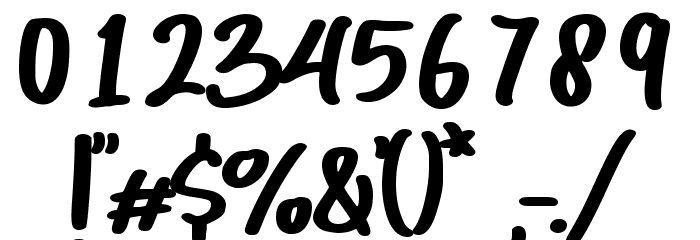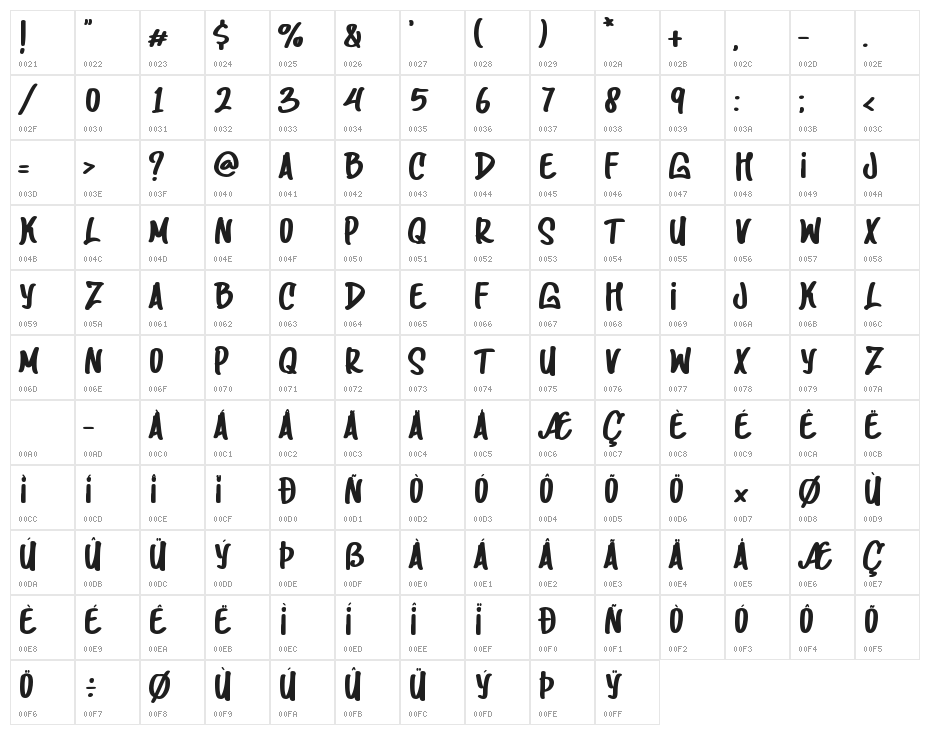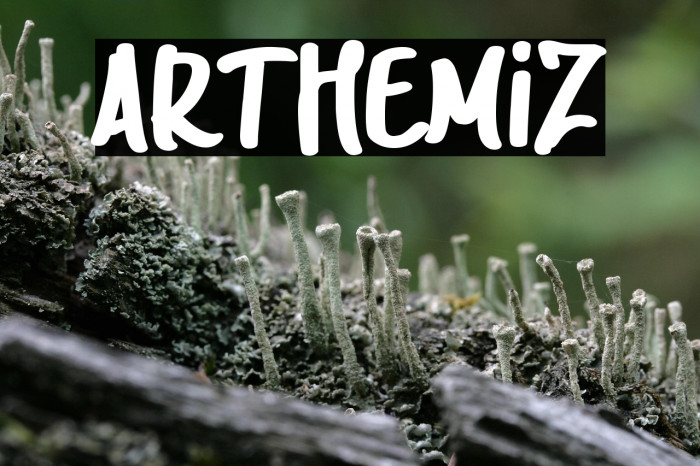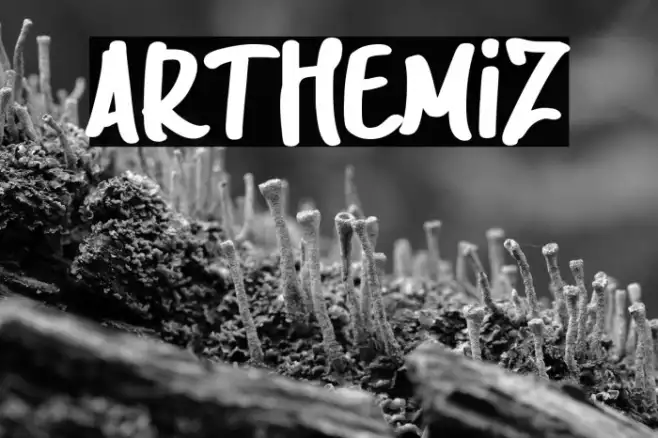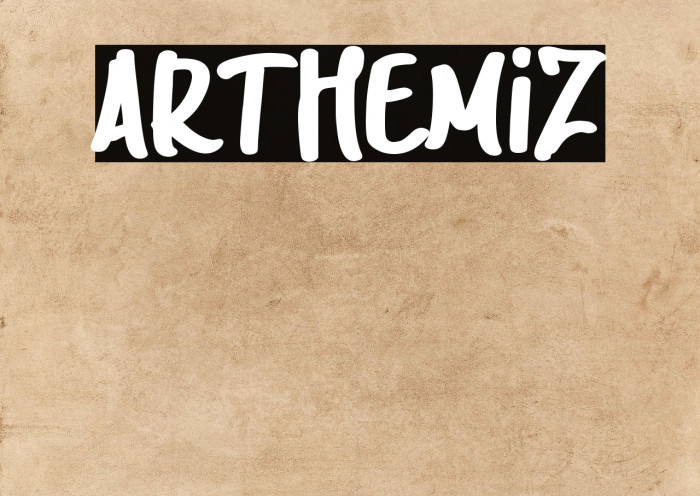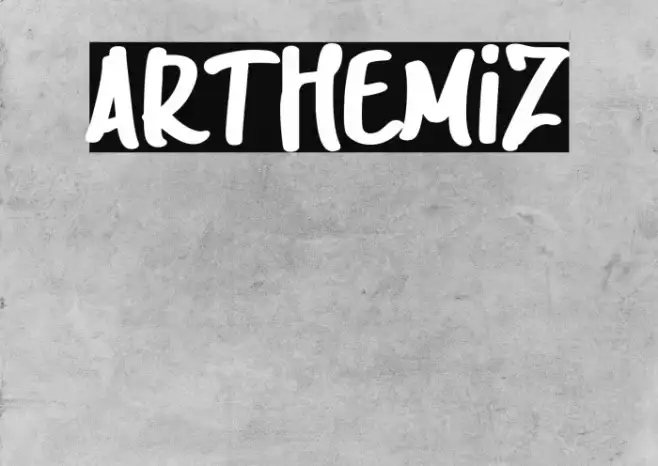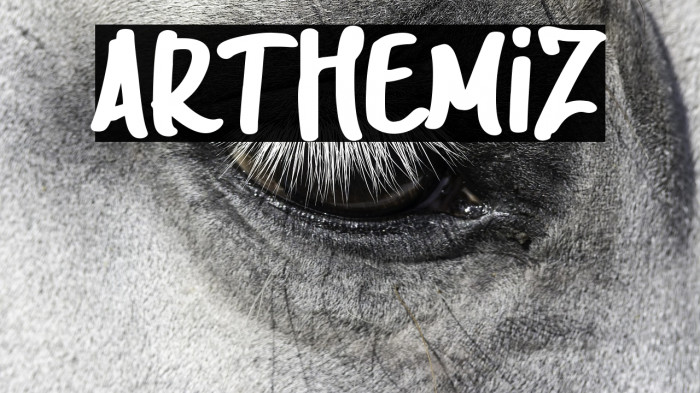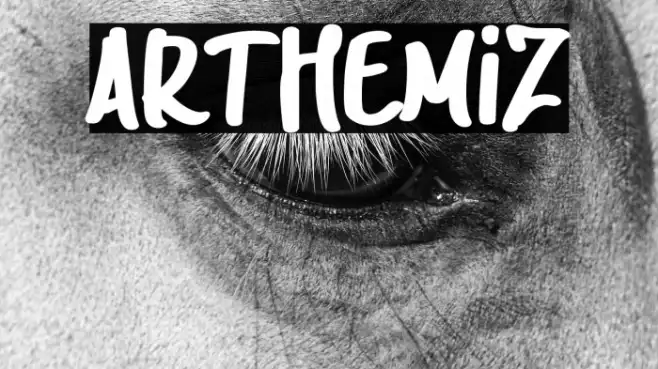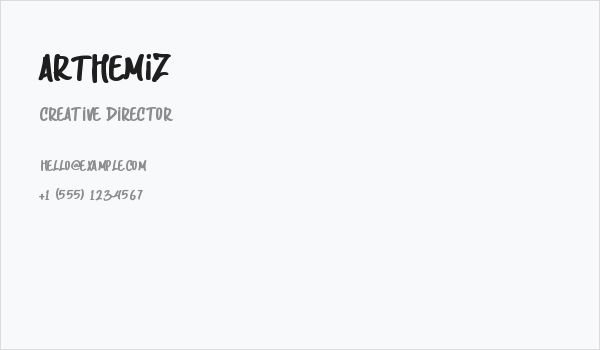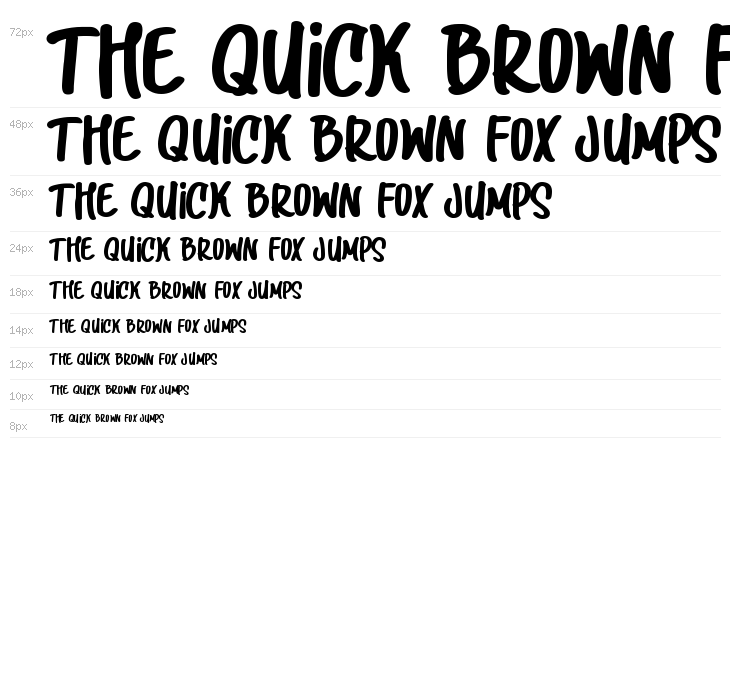
ARTHEMIZ Font
ARTHEMIZ Description
This font features a bold and energetic handwritten style, characterized by its thick, rounded strokes and playful curves. The letters are slightly slanted, giving a dynamic and informal appearance. The uppercase and lowercase letters maintain a consistent style, with a smooth flow that suggests a casual, yet confident personality. The numbers and special characters are equally bold, ensuring readability and coherence across all text elements. This font's lively and approachable design makes it suitable for projects that aim to convey a sense of fun and creativity.
| Overall Style | Playful, Casual |
| Proposed Projects | Ideal for children's books, playful branding, casual invitations, and creative posters. |